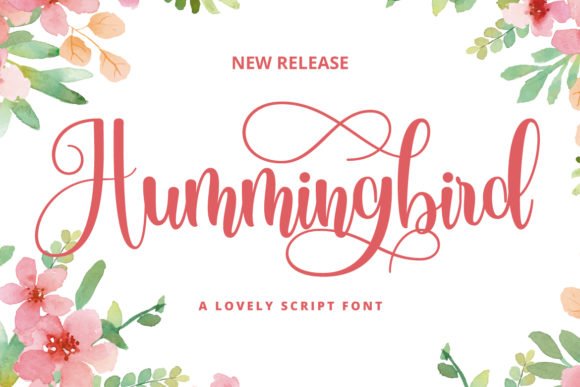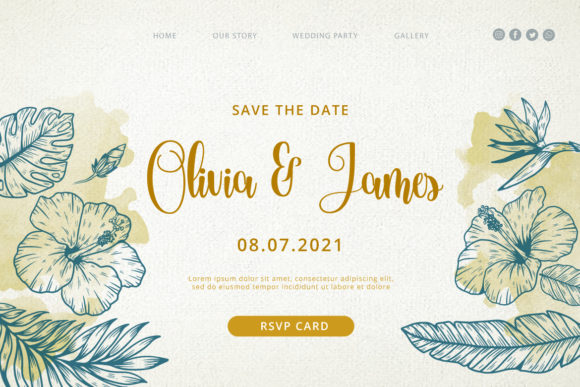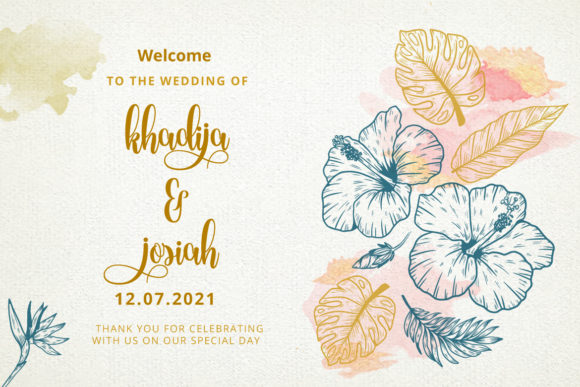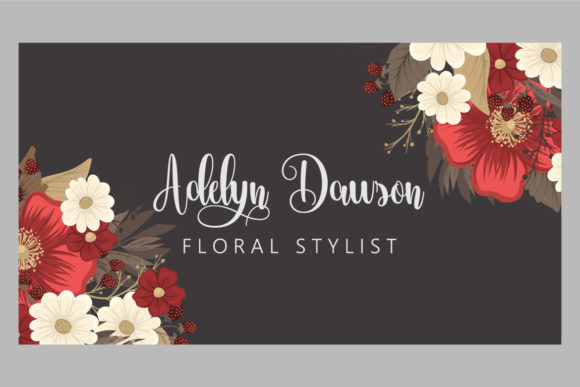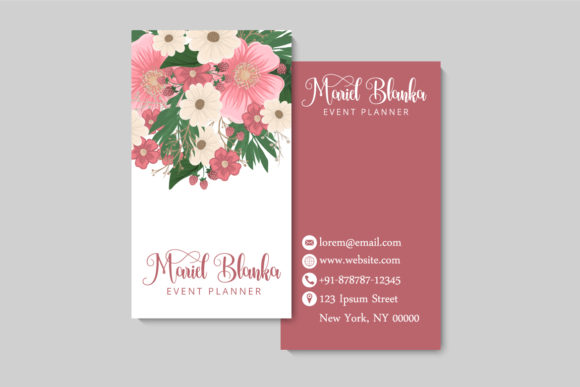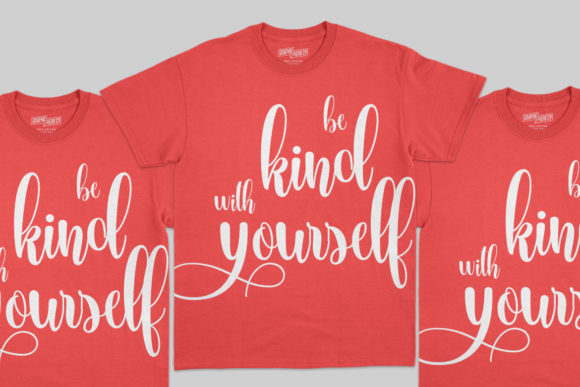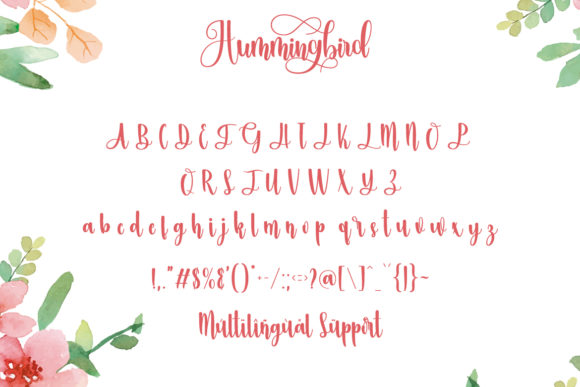
The Perfect Font for Whimsical Designs
Have you ever stumbled upon a font that sparks joy and makes you want to create something beautiful? For many designers, that moment of inspiration is what drives their passion. For me, it was the Hummingbird Font – a stunning script font that transports me to a world of elegance and whimsy.
With its authentic feel and delicate curves, the Hummingbird Font is perfect for creating gorgeous wedding invitations, beautiful stationery art, and eye-catching social media posts. This versatile font is not only beautiful but also PUA encoded, making it easy to access its cute glyphs and swashes. Whether you’re a seasoned designer or just starting out, the Hummingbird Font is a valuable addition to your toolkit.
- Unique Characteristics: Hummingbird Font features a distinctive, flowing script design with elegant connections between letters, making it perfect for titles, headings, and invitations.
Review: Hummingbird Font
Overall, I think the Hummingbird font is a beautiful addition to any design project. ✨ Its whimsical feel and delicate lines make it perfect for branding and editorial work.
The font’s legibility is one of its strongest points. It’s easy to read even at small sizes, which is a must for any font. Additionally, the Hummingbird font has a wide range of stylistic options, including bold and italic variations, making it versatile and adaptable to different design needs.
However, there are a few limitations to consider. ⚠️ For one, the font may not be the best choice for high-contrast designs, as its fine lines can get lost against bold backgrounds. Additionally, some users have reported issues with font rendering at very small sizes, which can affect the overall look of the design.
Despite these limitations, I think the Hummingbird font is a great choice for designers who want a unique and elegant look for their projects.
- Legible even at small sizes
- Wide range of stylistic options (bold, italic, etc.)
- Beautiful, whimsical feel
- May not be suitable for high-contrast designs
- May experience font rendering issues at very small sizes
The Hummingbird Font is perfect for:
- Children’s book illustrations.
Remember to pair the Hummingbird Font with a clear and concise message to make your design stand out.